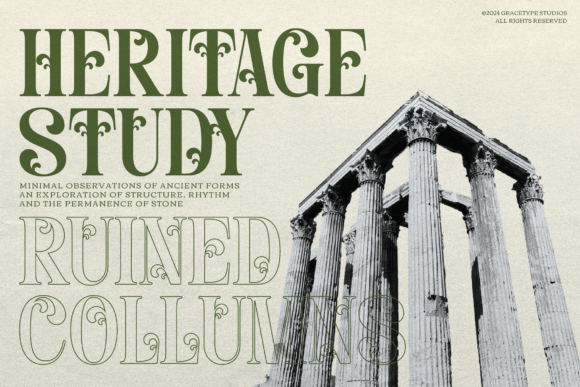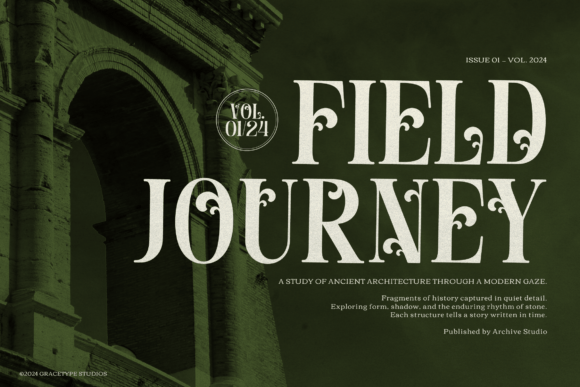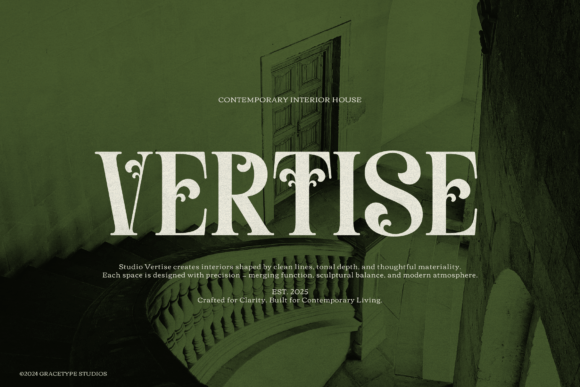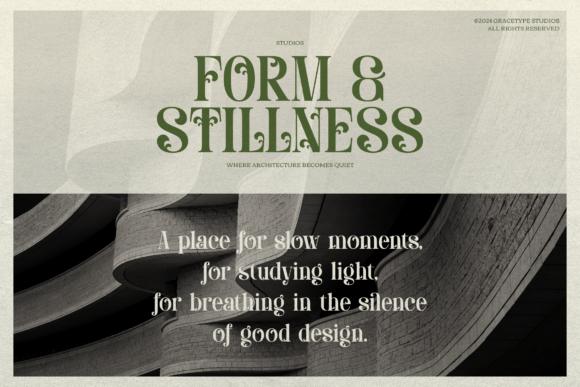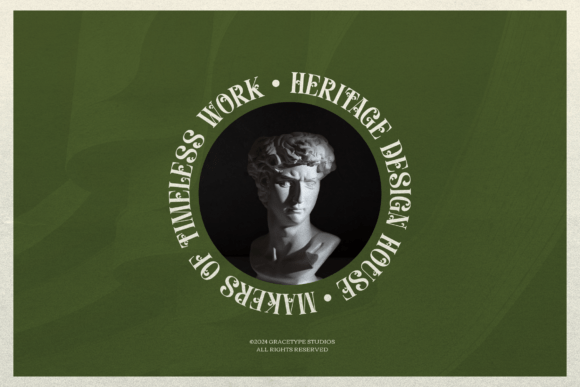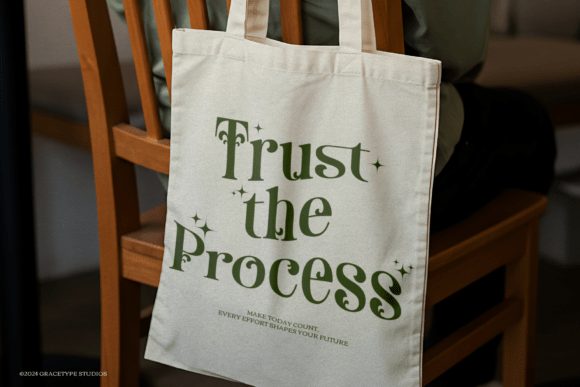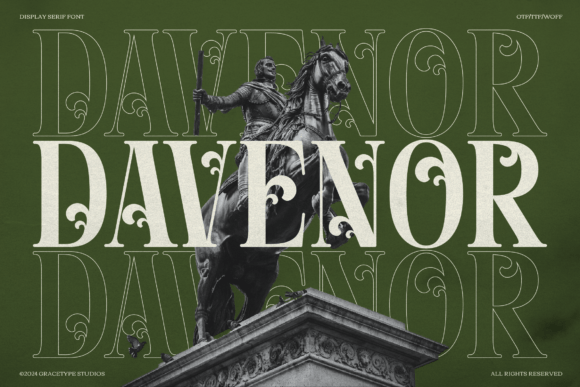
Introducing Davenor: The Epitome of Elegance in Display Serif Fonts
In the realm of typography, few fonts manage to convey the essence of luxury and sophistication as effectively as Davenor. This display serif font is a masterclass in elegant design, boasting high contrast, dramatic lines, and ornamental serifs that curve with grace. Davenor is not just a font; it’s an experience, a statement of refinement and poise that elevates any project it’s part of.
The Design Philosophy Behind Davenor
Davenor’s design is rooted in a deep understanding of classical typography, combined with a forward-thinking approach to modern aesthetics. It strikes a perfect balance between traditional proportions and a sleek, contemporary vibe. This fusion results in a typeface that feels both timeless and cutting-edge, capable of commanding attention while exuding an aura of sophistication.
Key Features of Davenor Font
- High Contrast and Dramatic Lines: Davenor’s high contrast between thick and thin strokes, along with its dramatic lines, adds a layer of elegance and drama, making it perfect for headlines and titles.
- Ornamental, Curving Serifs: The serifs in Davenor are not just functional; they’re ornamental, curving with a finesse that adds to the font’s luxurious feel.
- Classical Proportions with a Modern Twist: Davenor marries the classical proportions of serif fonts with a modern sensibility, making it versatile for a wide range of applications.
Ideal Applications for Davenor
Davenor’s unique blend of elegance and authority makes it an excellent choice for various high-end projects. Some of the ideal applications include:
- Luxury Branding: For brands that aim to convey exclusivity, sophistication, and a high-end quality, Davenor is an impeccable choice.
- Editorial Layouts: Magazines, editorials, and any form of high-end publishing can benefit from Davenor’s elegant and commanding presence.
- High-Fashion Advertisements: Davenor’s dramatic and luxurious aesthetic makes it a natural fit for high-fashion, where conveying elegance and exclusivity is paramount.
- Historical or Museum Exhibitions: For projects that require a touch of classic elegance and authority, Davenor helps in creating a respectful yet engaging visual identity.
- Distinctive Logo Design: For a logo that needs to stand out with elegance and authority, Davenor offers a range of possibilities for customizing a unique and impactful design.
Why Davenor Stands Out
In a sea of typefaces, Davenor stands out for its ability to bring about a sense of refined authority and timeless beauty. Its striking forms are crafted for maximum impact, making it an ideal hero font for projects that demand the highest level of sophistication. Whether you’re working on a luxury brand, a high-end editorial, or any project that requires a touch of elegance, Davenor promises to elevate your design to new heights of aesthetic excellence.
Davenor is more than just a display serif font; it’s a statement of luxury, a beacon of elegance in the world of typography. Its unique blend of classical and modern elements, combined with its dramatic lines and ornamental serifs, makes it the perfect choice for designers and crafters looking to imbue their projects with a sense of sophistication and authority. Step into the world of regal elegance with Davenor, and discover the power of typography to transform your designs into timeless masterpieces.